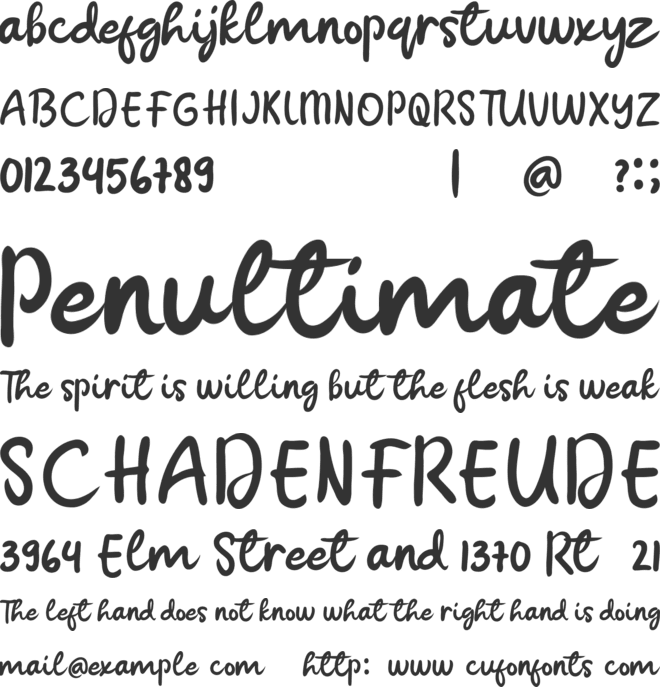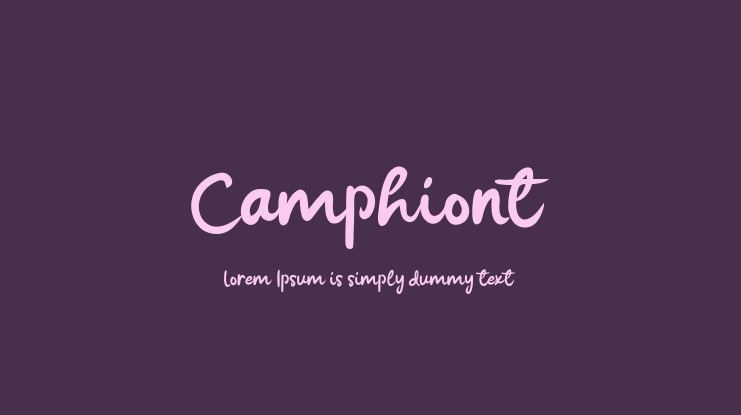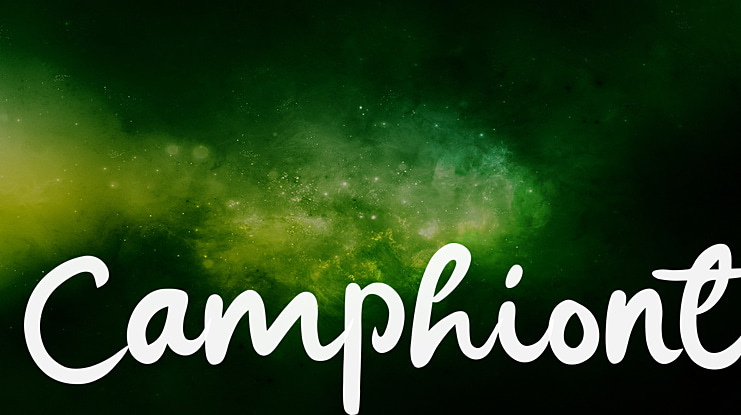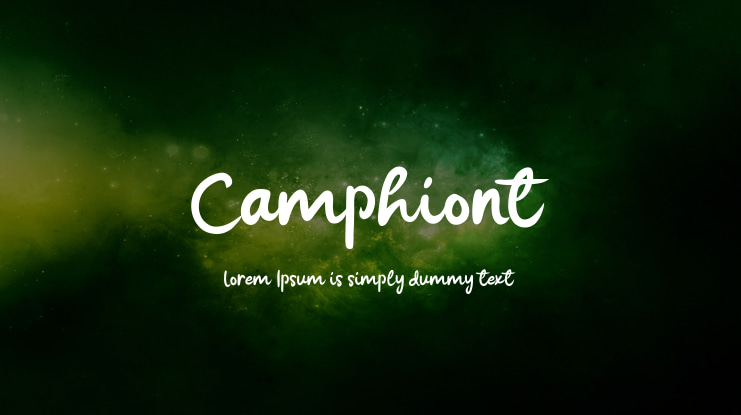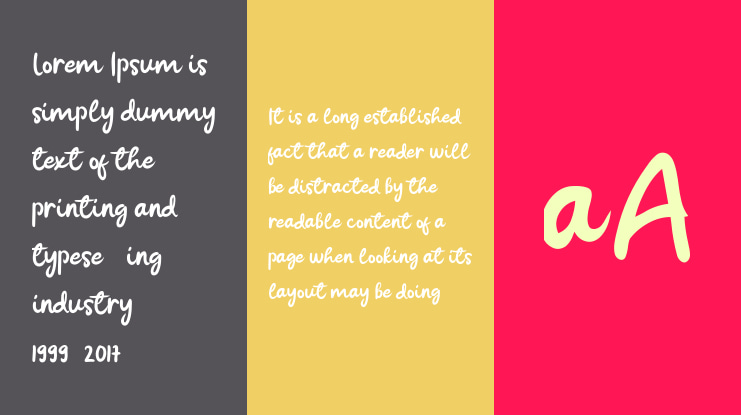
Camphiont Font
Camphiont font is a handwritten font with a simple but easy to read style. It is suitable for logos, branding, film covers, wedding invitations, etc.
Camphiont with uppercase letters, lowercase alternative letters, numbers, punctuation, ligature and multi lingual support.